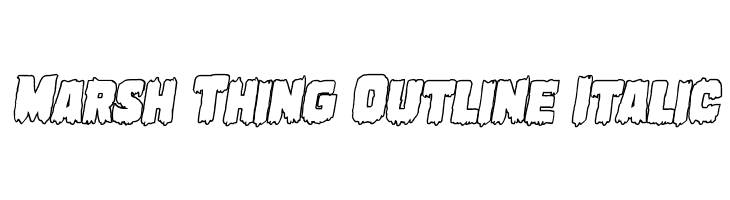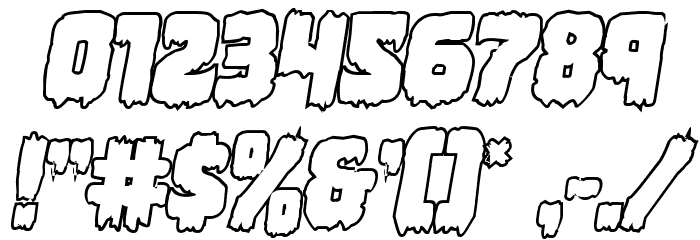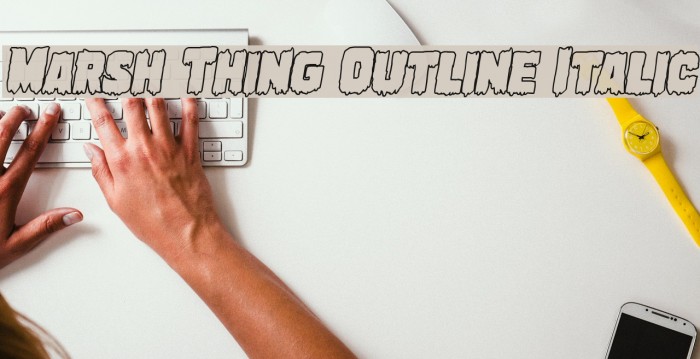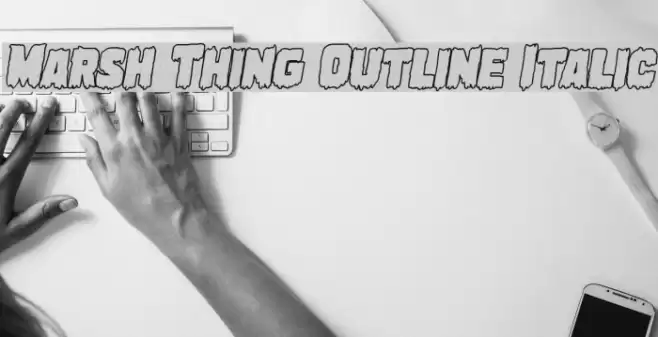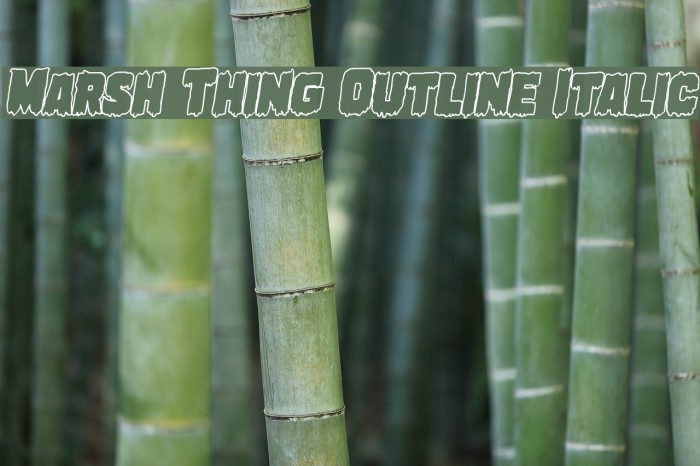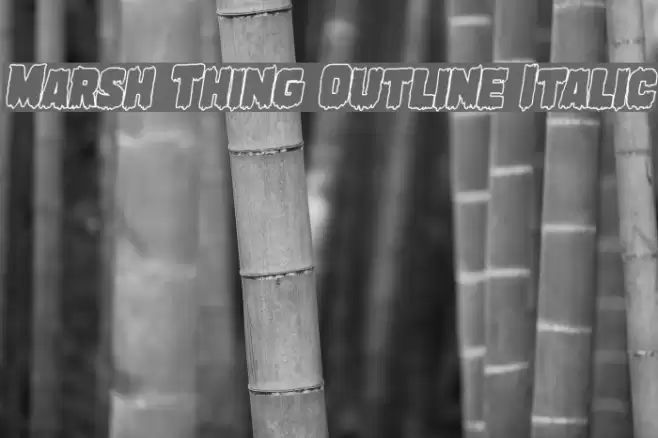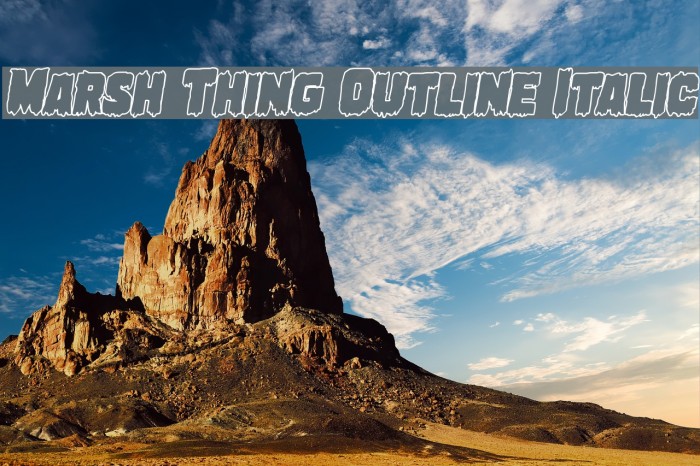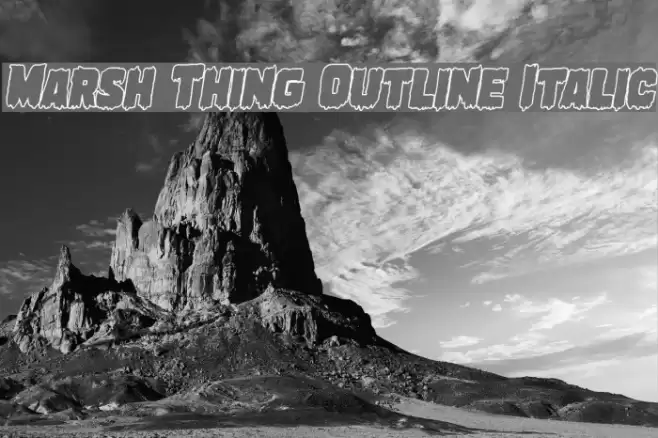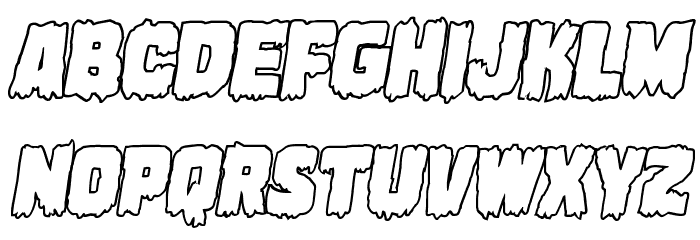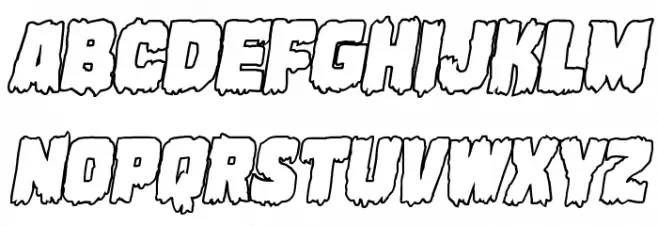
Marsh Thing Outline Italic Font
Marsh Thing Outline Italic Description
This font features a bold, playful design with an outline style that gives each character a unique, dripping effect. The letters are italicized, adding a sense of movement and dynamism. The uppercase and lowercase letters maintain a consistent style, with exaggerated curves and edges that create a whimsical, almost cartoonish appearance. The numbers and special characters follow the same design principles, ensuring a cohesive look across all elements. This font is perfect for projects that require a fun and eye-catching typeface, such as Halloween-themed designs or children's book covers.
| Proposed Projects | Ideal for Halloween designs, children's books, posters, and playful branding. |